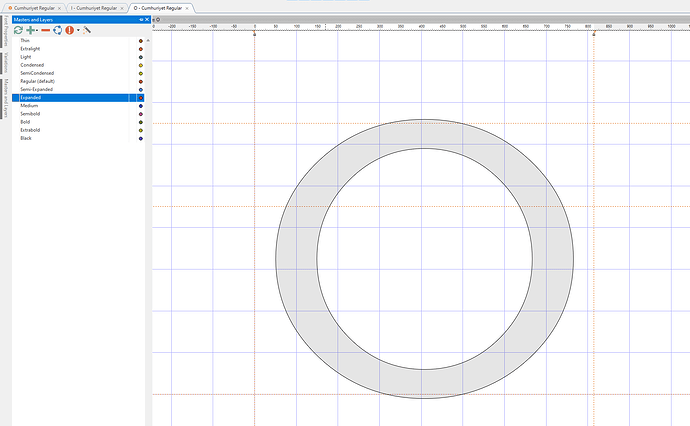
I use the scale feature from the Transform Wizard panel when creating the expanded style of the font. However, when I do this, the side parts of the letter become thicker than the upper parts, as seen in the picture. Do I need to deal with each glyph separately to get rid of this? Or is there an easier way to do this? Thanks in advance for your help.
You can try to use a Transform script with both a Scale and a Thin feature.
For example:
Scale 130, 103
Thin 30, 10